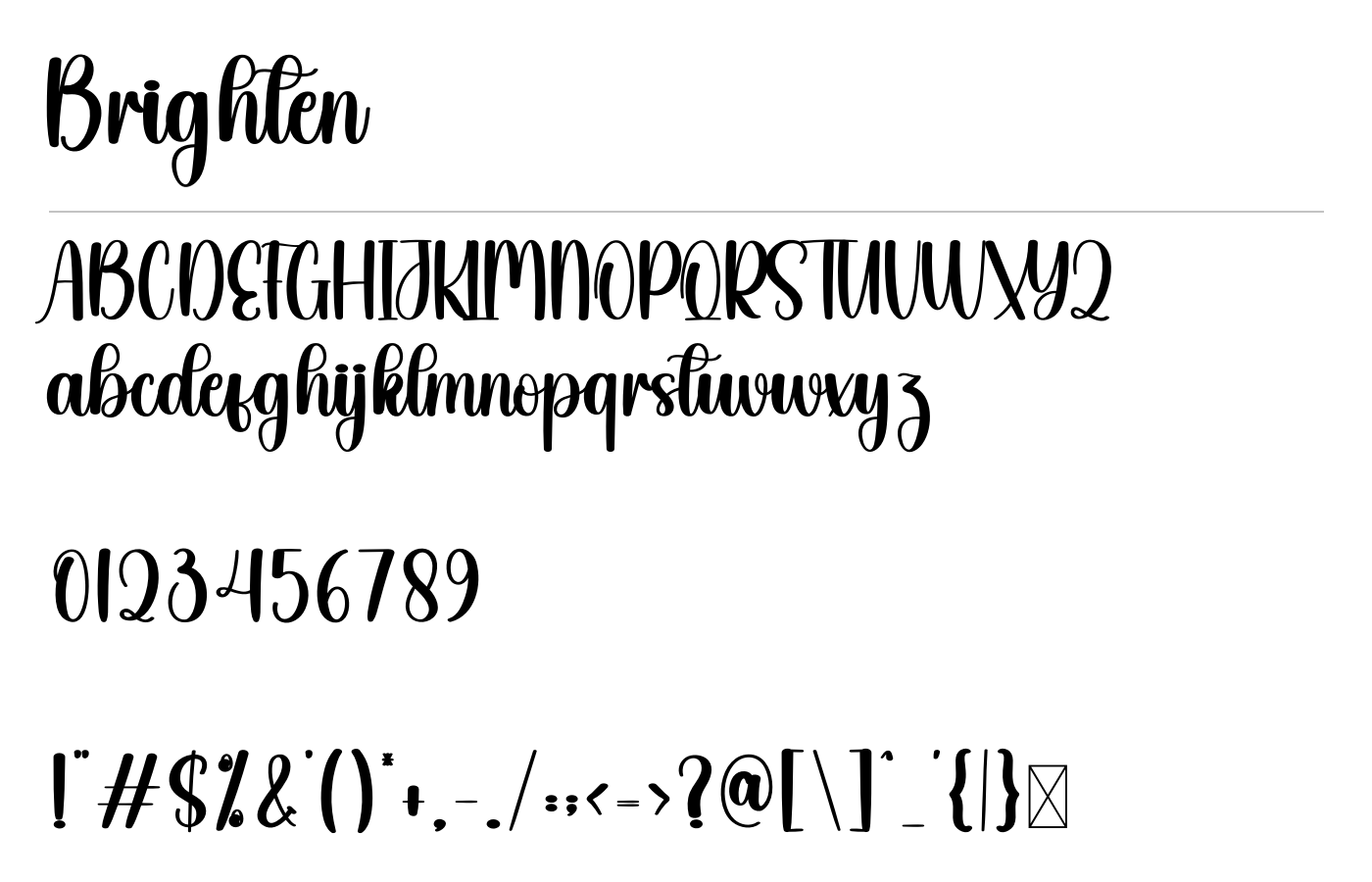
Brighten is a playful and elegant script font featuring a lively and flowing design with varying stroke thicknesses that create a hand-lettered feel. Its tall, narrow letterforms with rounded edges and unique character shapes make it perfect for inviting logos, creative headlines, and charming packaging that aims to convey friendliness and warmth. This font works well in projects where a personal, stylish touch is needed without sacrificing readability.
Brighten Font
About Brighten Font